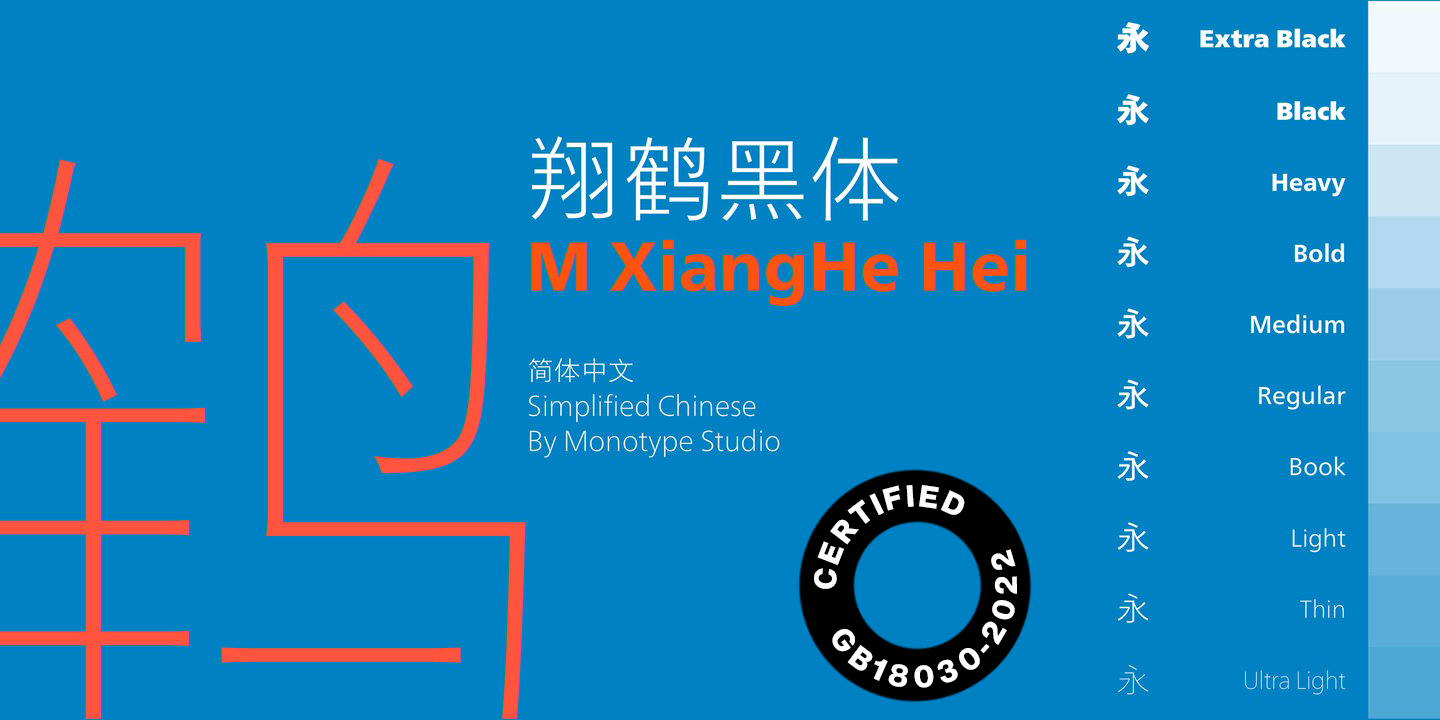
M XiangHe Hei SC Pro Variable Font is perfect for Chinese corporate branding, Simplified Chinese publications, East Asian market marketing, bilingual design projects, Chinese e-commerce platforms, and international business communications. Its sophisticated character makes it ideal for Chinese technology companies, Asian multinational corporations, Chinese educational institutions, and any application requiring professional Simplified Chinese typography that conveys modern elegance and cultural authenticity.
M XiangHe Hei SC Pro Variable Font is exciting because it combines cutting-edge variable font technology with traditional Chinese typographic excellence, creating a typeface that adapts seamlessly across different weights and styles while maintaining perfect character integrity. Its advanced variable capabilities allow designers unprecedented control over typographic expression in Chinese text, making it perfect for responsive design applications and dynamic digital interfaces. The font's technological innovation bridges ancient Chinese calligraphy traditions with modern digital typography requirements.
M XiangHe Hei SC Pro Variable Font family includes comprehensive variable weight options with continuous adjustment capabilities from Ultra Light to Black, featuring matching italic styles and extensive Simplified Chinese character coverage. The family often incorporates advanced OpenType features, complete punctuation sets, and optimized rendering for both print and digital Chinese applications, providing designers with professional tools for creating sophisticated Simplified Chinese typographic solutions.
When selecting professional Chinese typography solutions, M XiangHe Hei SC Pro Variable Font Free Download represents an exceptional choice for Simplified Chinese design projects. This innovative typeface brings instant Chinese market credibility to any application, making it invaluable for companies entering Asian markets, Chinese educational publishers, and international brands requiring authentic Chinese typography. Whether you're developing Chinese mobile applications, creating Simplified Chinese marketing materials, or designing bilingual corporate communications, M XiangHe Hei SC Pro Variable Font provides the cultural authenticity and technical excellence essential for successful Chinese market penetration in today's rapidly expanding Asian digital economy.